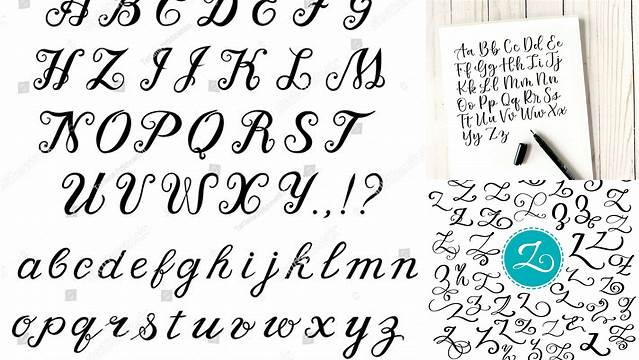
Calligraphy Fonts A To Z: Downloadable Styles
Are you looking to add a touch of elegance and personalization to your projects? One fantastic way to achieve this is by using calligraphy fonts. These fonts mimic the beautiful strokes of hand-lettering, giving your designs a sophisticated and artistic flair. In this comprehensive guide, we will explore the world of calligraphy fonts, focusing on both capital and small letters from A to Z, and provide you with resources to download and use them.
Understanding Calligraphy Fonts
Calligraphy fonts are designed to replicate the flowing, artistic strokes of traditional calligraphy. Unlike standard fonts, calligraphy fonts often feature varying stroke widths, elegant curves, and decorative flourishes. Calligraphy, guys, is more than just pretty writing; it's an art form. The best calligraphy fonts capture the essence of this art, allowing you to use them digitally for a variety of purposes.
Key Characteristics of Calligraphy Fonts
- Varying Stroke Widths: One of the most distinctive features of calligraphy is the variation in the thickness of the lines. Upstrokes are typically thin, while downstrokes are thick, creating a dynamic and visually appealing effect. This variation adds depth and character to each letter, making the font look more organic and hand-drawn. The contrast in stroke widths is crucial for achieving the classic calligraphy look, and it's something you should look for when choosing a font.
- Elegant Curves and Flourishes: Calligraphy fonts often include graceful curves and decorative flourishes that add elegance and sophistication to the text. These embellishments can range from subtle loops to elaborate swirls, depending on the style of calligraphy being emulated. Flourishes are particularly useful for adding emphasis or decoration to headings, titles, or invitations. They can transform a simple word into a stunning visual element, making the text more memorable and impactful.
- Slanted Axis: Many calligraphy styles feature a slanted axis, which means the letters lean slightly to the right. This slant adds a sense of movement and flow to the text, making it more visually engaging. The degree of slant can vary, with some fonts having a more pronounced slant than others. A consistent slant throughout the font is essential for maintaining a cohesive and professional look. This slight inclination gives calligraphy its distinctive rhythm and aesthetic appeal.
- Ligatures and Swashes: Ligatures are special characters that combine two or more letters into a single glyph, creating a seamless connection between the letters. Swashes are extended strokes or flourishes that add an extra touch of elegance. Both ligatures and swashes can enhance the overall look of calligraphy fonts, making them appear more polished and refined. These features are particularly useful for adding a personalized touch to your designs, creating unique and memorable typography. When used sparingly and appropriately, ligatures and swashes can elevate your text to a whole new level of sophistication.
Types of Calligraphy Fonts
Calligraphy fonts come in various styles, each with its unique characteristics and applications. Understanding these styles can help you choose the right font for your project.
- Copperplate: Known for its elegant, flowing strokes and high contrast between thick and thin lines. Copperplate calligraphy is often used for formal invitations and wedding stationery. The refined and delicate appearance of Copperplate fonts makes them ideal for projects that require a touch of sophistication and class. Its timeless appeal ensures that your text will always look elegant and professional.
- Spencerian: A more relaxed and flowing style than Copperplate, Spencerian calligraphy is characterized by its graceful curves and elegant loops. It is often used for personal correspondence and branding materials. Spencerian fonts have a friendly and approachable feel, making them perfect for projects that aim to convey warmth and personality. The smooth, rhythmic strokes create a sense of movement and fluidity, adding a dynamic touch to your text.
- Blackletter: A bold and dramatic style with thick, angular strokes. Blackletter calligraphy is often used for certificates, diplomas, and historical documents. The strong and imposing appearance of Blackletter fonts makes them suitable for projects that require a sense of authority and tradition. Its distinctive look can add a unique and memorable touch to your designs, especially when used sparingly.
- Italic: A slanted and flowing style that is both elegant and legible. Italic calligraphy is often used for body text and headings. Italic fonts offer a perfect balance between formality and readability, making them versatile for a wide range of applications. Their graceful curves and slanted strokes add a touch of sophistication to any text, while maintaining clarity and ease of reading.
- Modern Calligraphy: A contemporary style that combines traditional techniques with modern design sensibilities. Modern calligraphy fonts offer a wide range of styles, from playful and whimsical to elegant and refined. This versatility makes them suitable for a variety of projects, from branding and marketing materials to personal stationery and digital designs. Modern calligraphy fonts allow for creative expression and personalization, making your text truly unique and memorable.
Calligraphy fonts offer a fantastic way to add elegance and personality to your designs. By understanding the different styles and characteristics of these fonts, and by using them thoughtfully, you can create beautiful and impactful text. Whether you're working on invitations, branding materials, or personal projects, the right calligraphy font can make a significant difference. So go ahead, guys, and explore the world of calligraphy fonts – from A to Z, capital and small – and let your creativity flow!